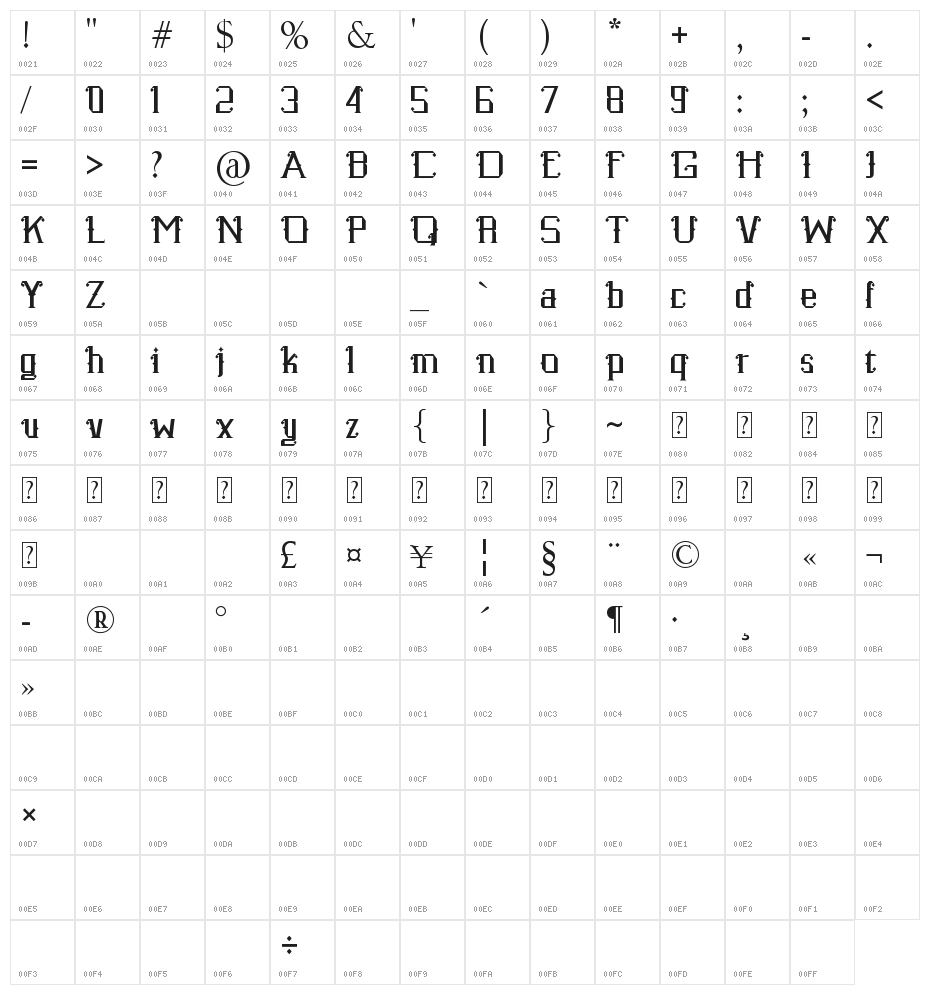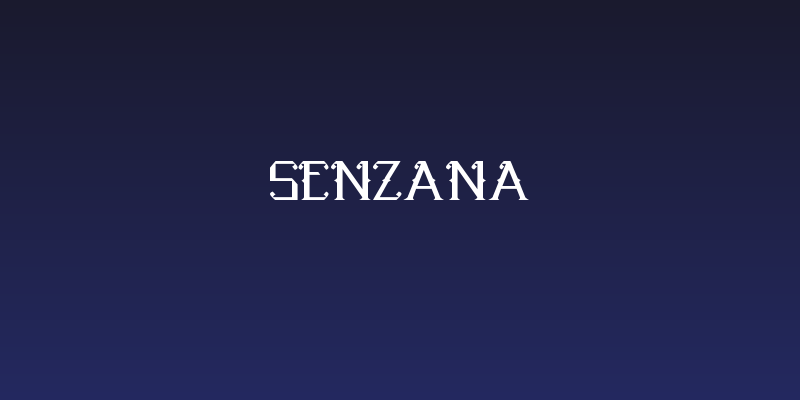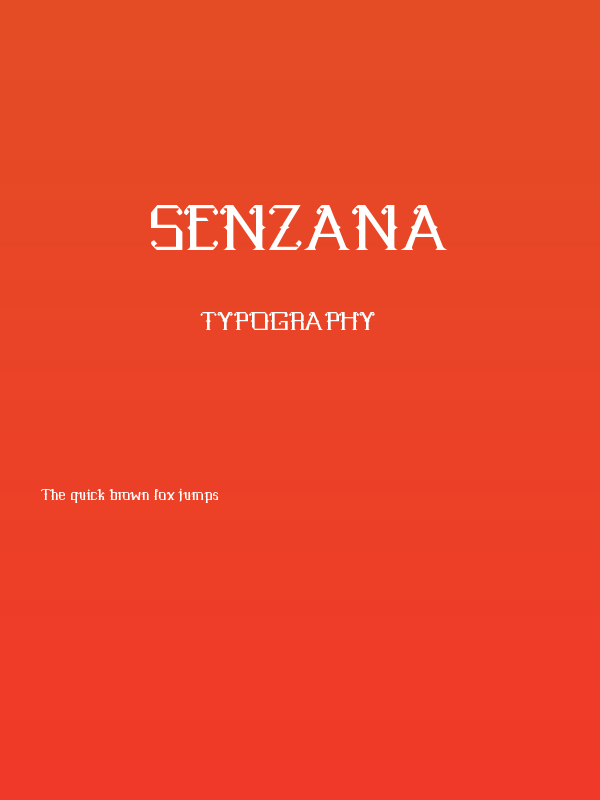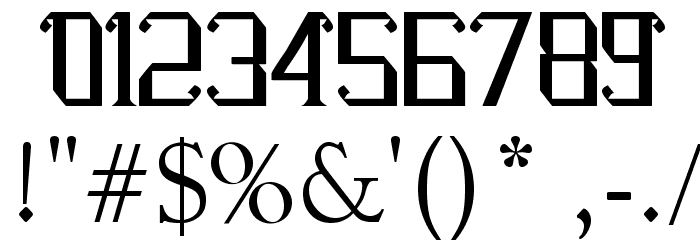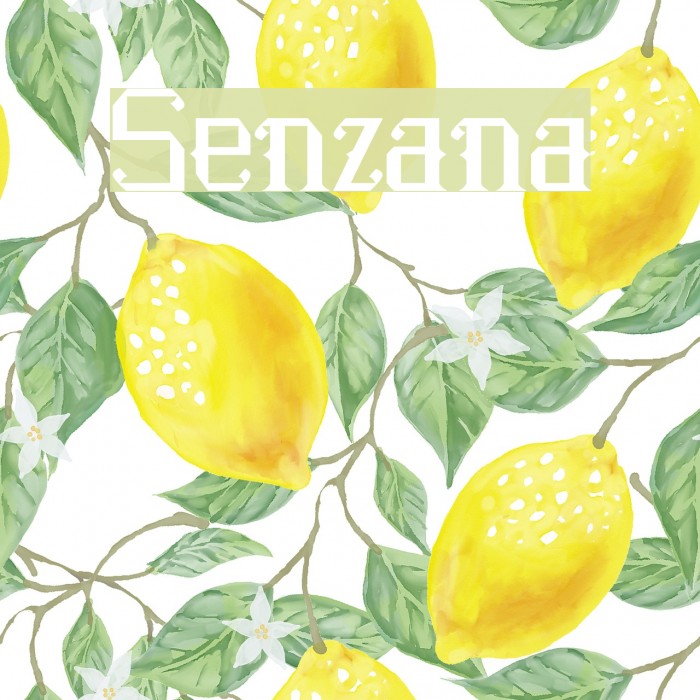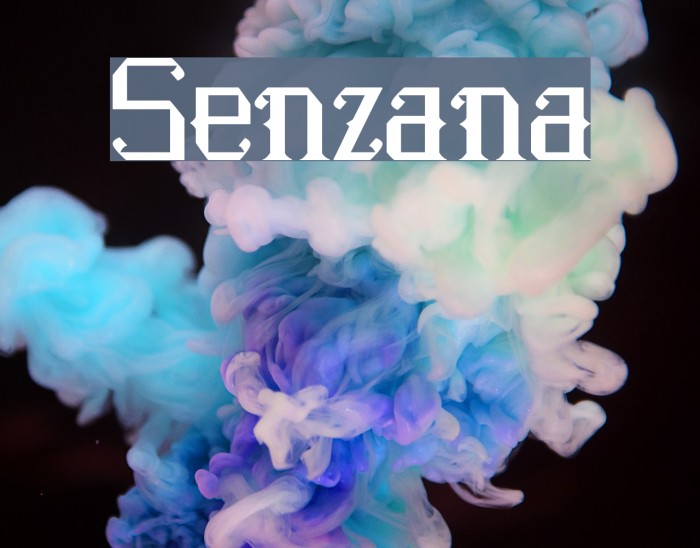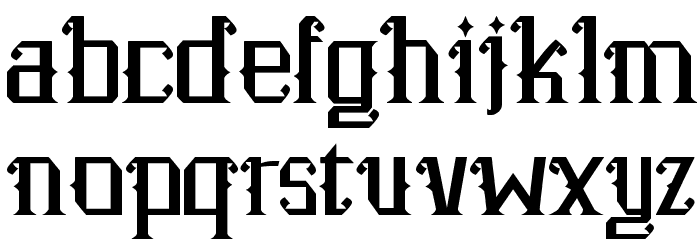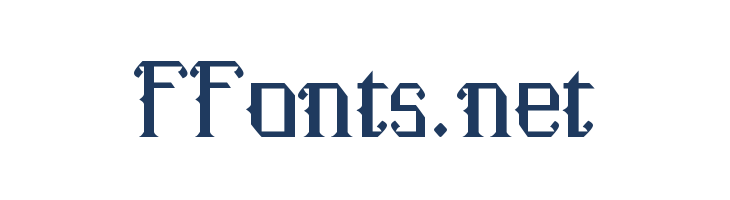
Senzana Font
Senzana Description
This font features a unique and decorative style with a modern twist. The characters are designed with sharp, angular edges and intricate cut-out details that give it a futuristic and edgy appearance. The uppercase letters are bold and striking, while the lowercase letters maintain the same geometric aesthetic. Numbers and special characters follow the same design principles, ensuring consistency across all elements. This font stands out with its high contrast between thick and thin strokes, adding to its dynamic and eye-catching look.
SENZANA UPPERCASE
SENZANA LOWERCASE
SENZANA OTHER CHARS
| Overall Style | Modern, Decorative |
| Proposed Projects | Ideal for branding, posters, album covers, and any project requiring a bold, futuristic aesthetic. |